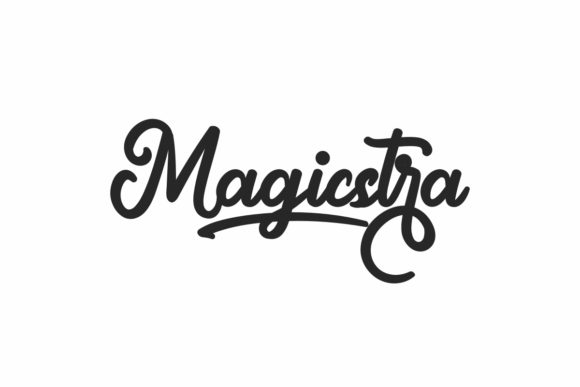
Journey into the realm of captivating typography with the Magicstra font, a script font family designed to elevate your designs to new heights of elegance and charm. Created by the skilled hands of NihStudio, Magicstra is not just a font; it's an artistic masterpiece that breathes life into your creative visions.
Unleash the power of handwritten beauty with Magicstra, the perfect font for crafting original and outstanding designs that leave a lasting impression. Its enchanting curves and graceful strokes evoke a sense of timeless sophistication, adding a touch of magic to every project.
With Magicstra, you'll find a treasure trove of possibilities. Its PUA encoding grants you effortless access to a vast collection of glyphs and swashes, empowering you to explore limitless creative avenues. Whether you're designing logos, posters, invitations, or social media graphics, Magicstra will transform your ideas into captivating visual masterpieces.
Step into the world of modern aesthetics with Magicstra, the font that embodies the spirit of contemporary design. Its meticulously crafted characters exude a clean and crisp appearance, perfectly suited for projects that demand a sleek and polished look.
Magicstra is more than just a font; it's an expression of individuality and style. Its versatility extends far beyond traditional applications, making it the ideal choice for creating stunning logos, eye-catching headlines, captivating social media posts, and unforgettable branding materials.
With Magicstra, you'll discover a new level of creative freedom, unleashing your imagination to create designs that resonate with your audience. Its enchanting charm will capture hearts and leave a lasting impression, elevating your projects to new heights of excellence.